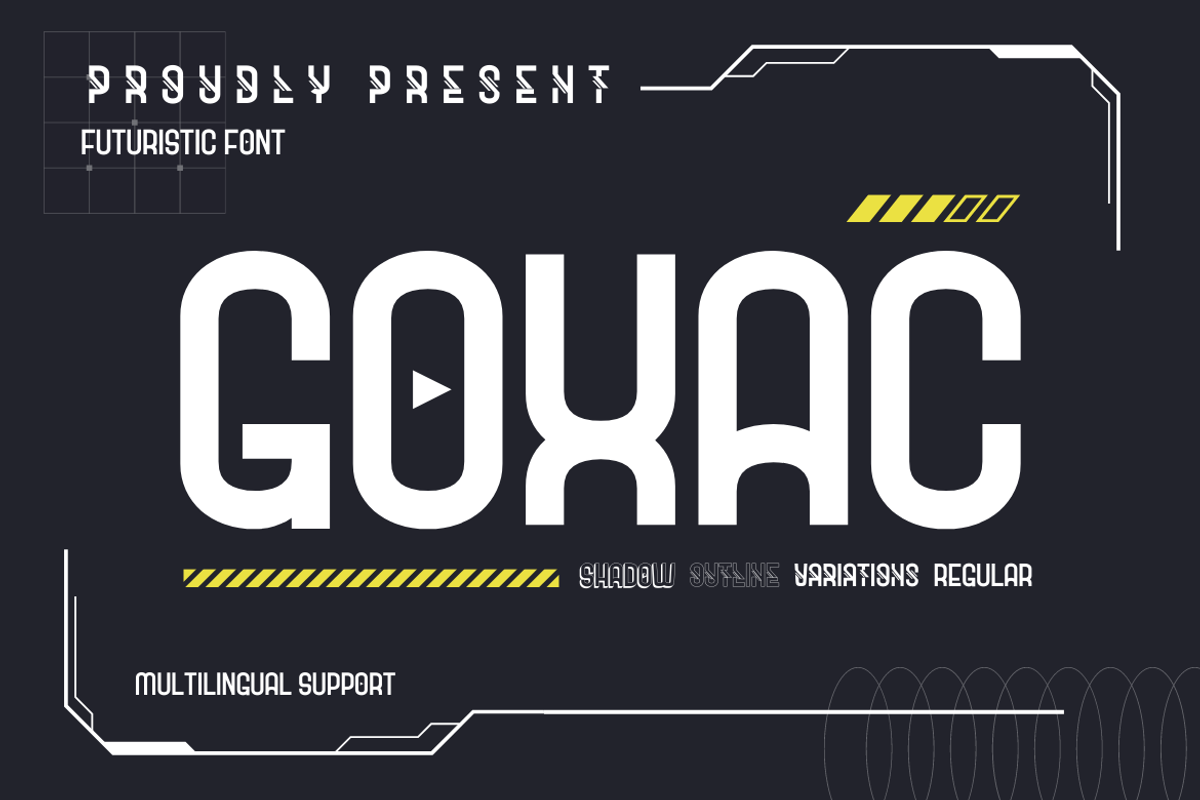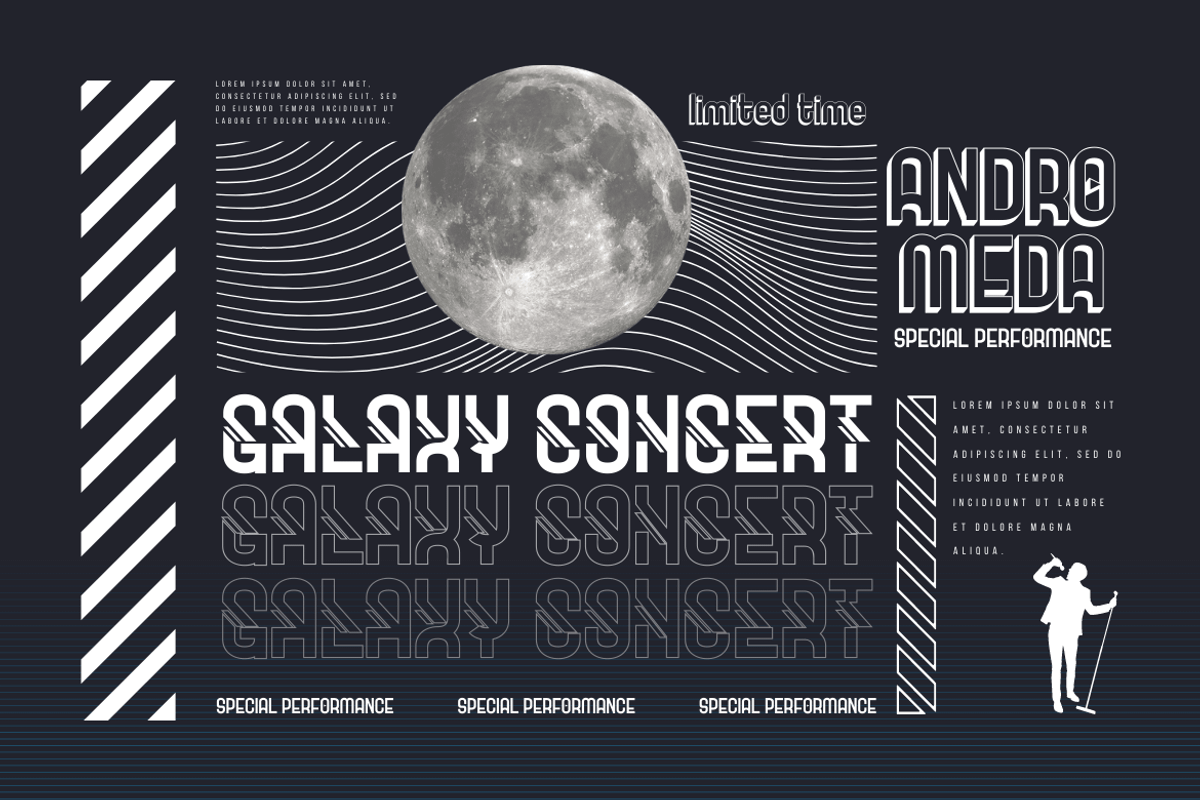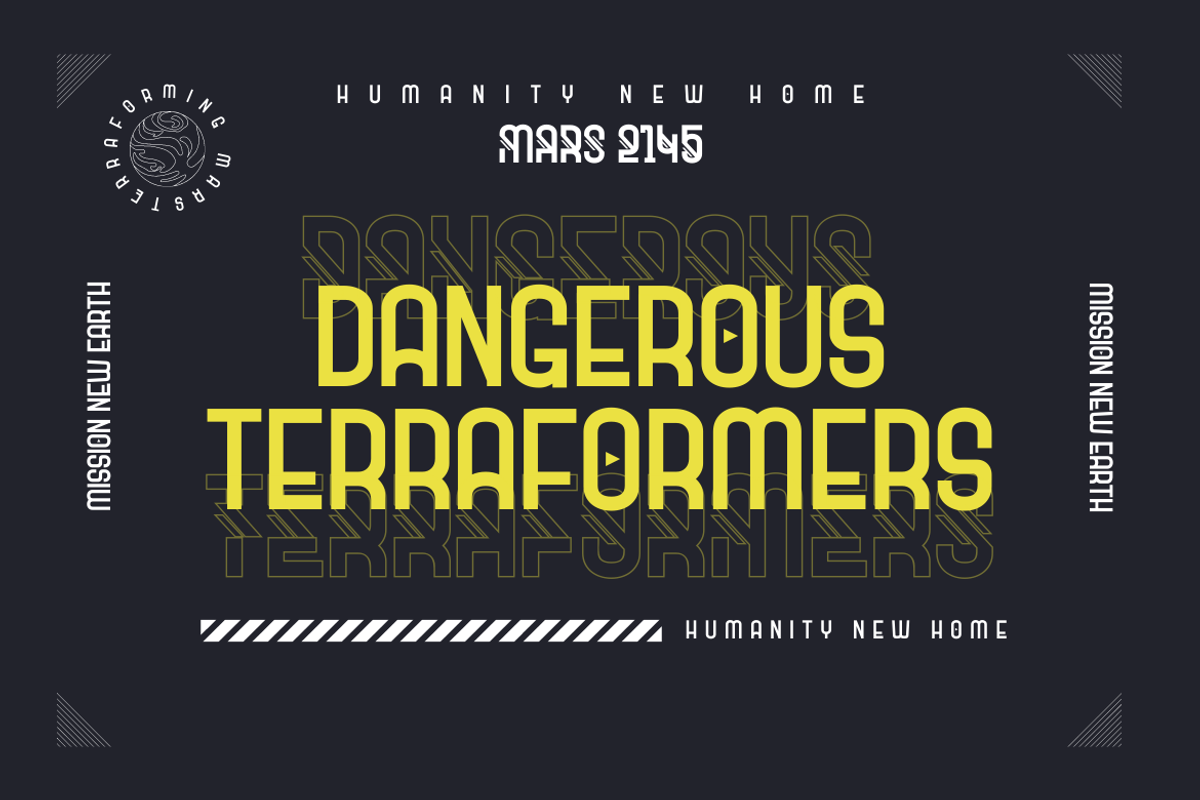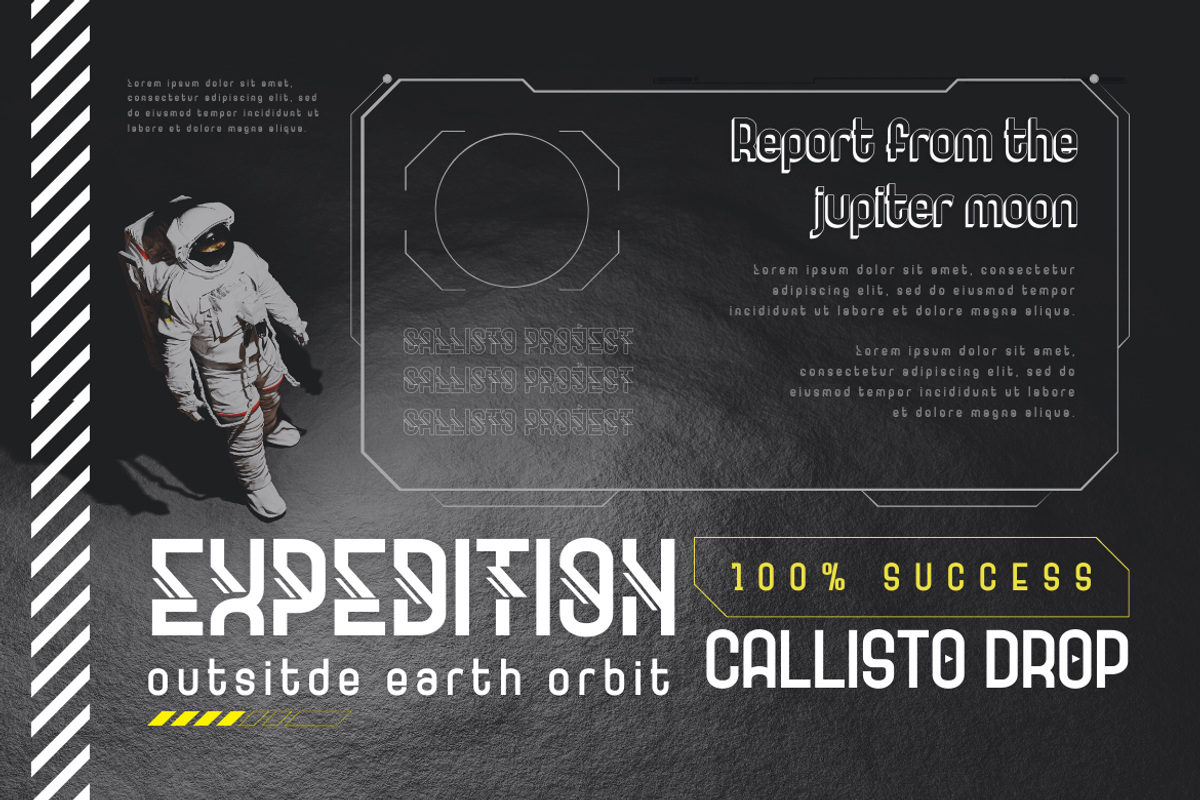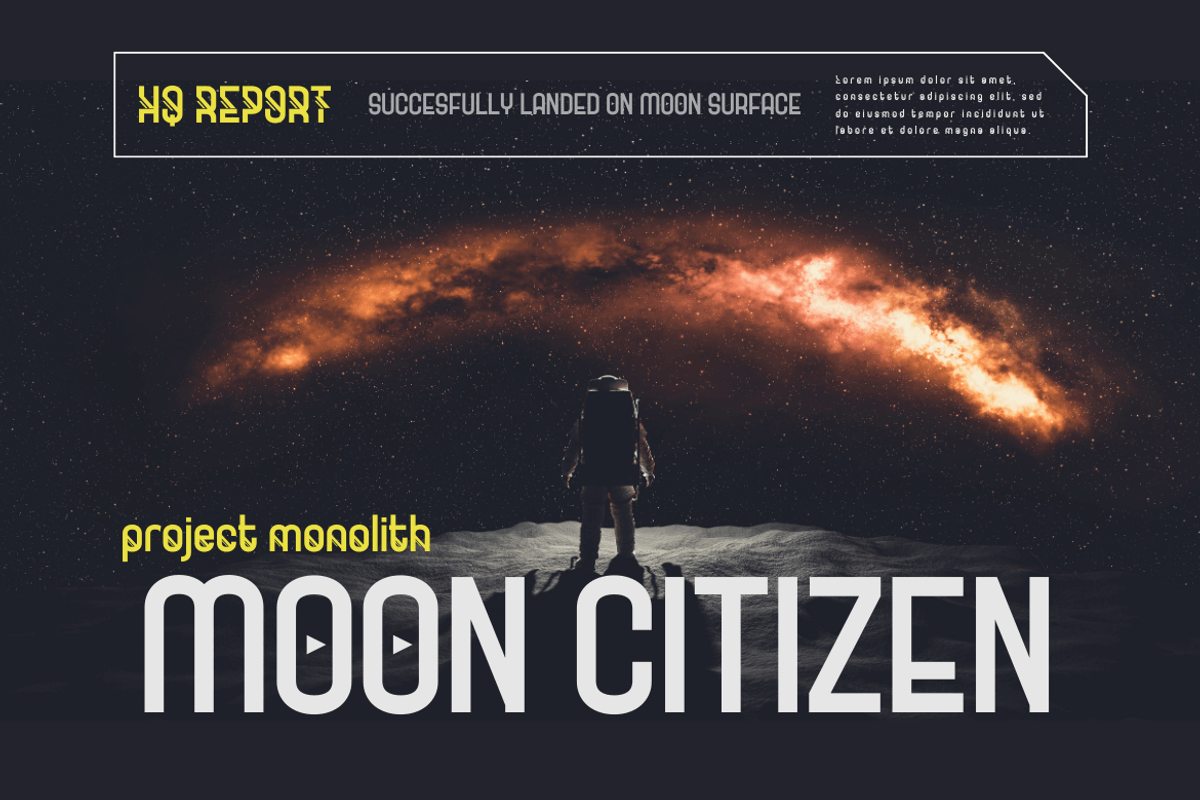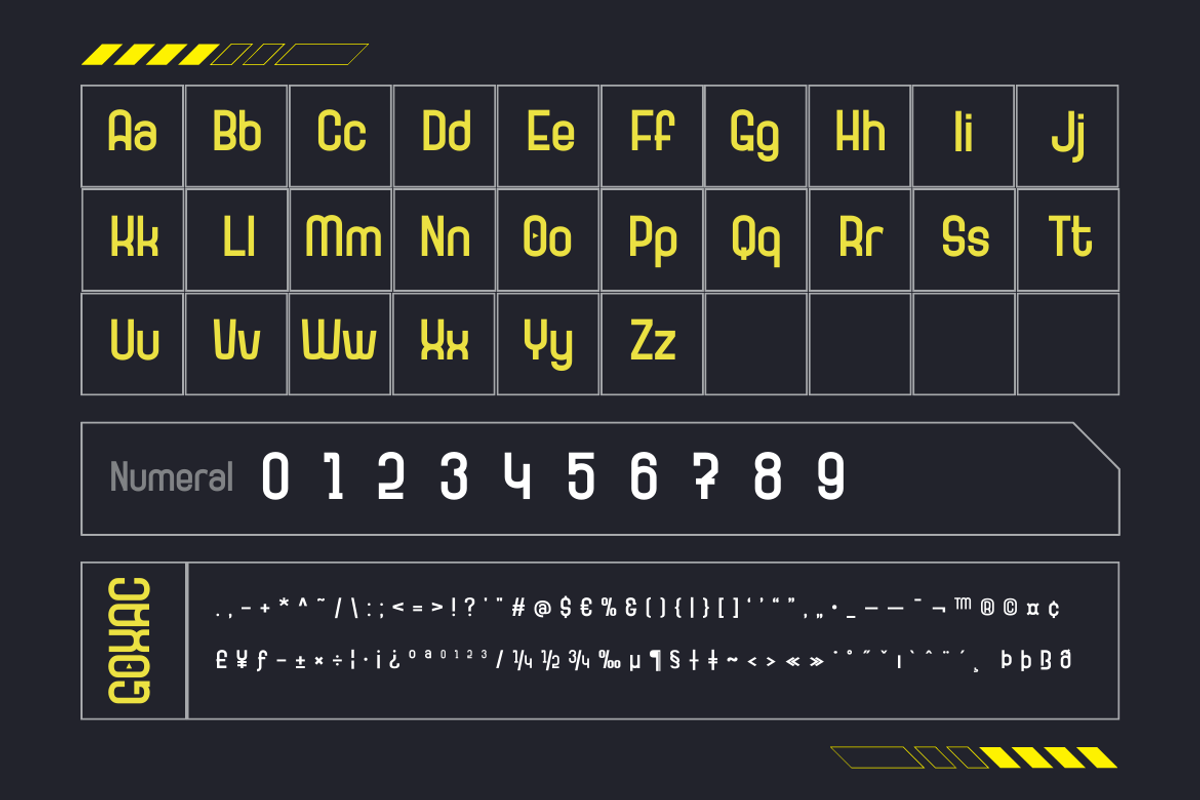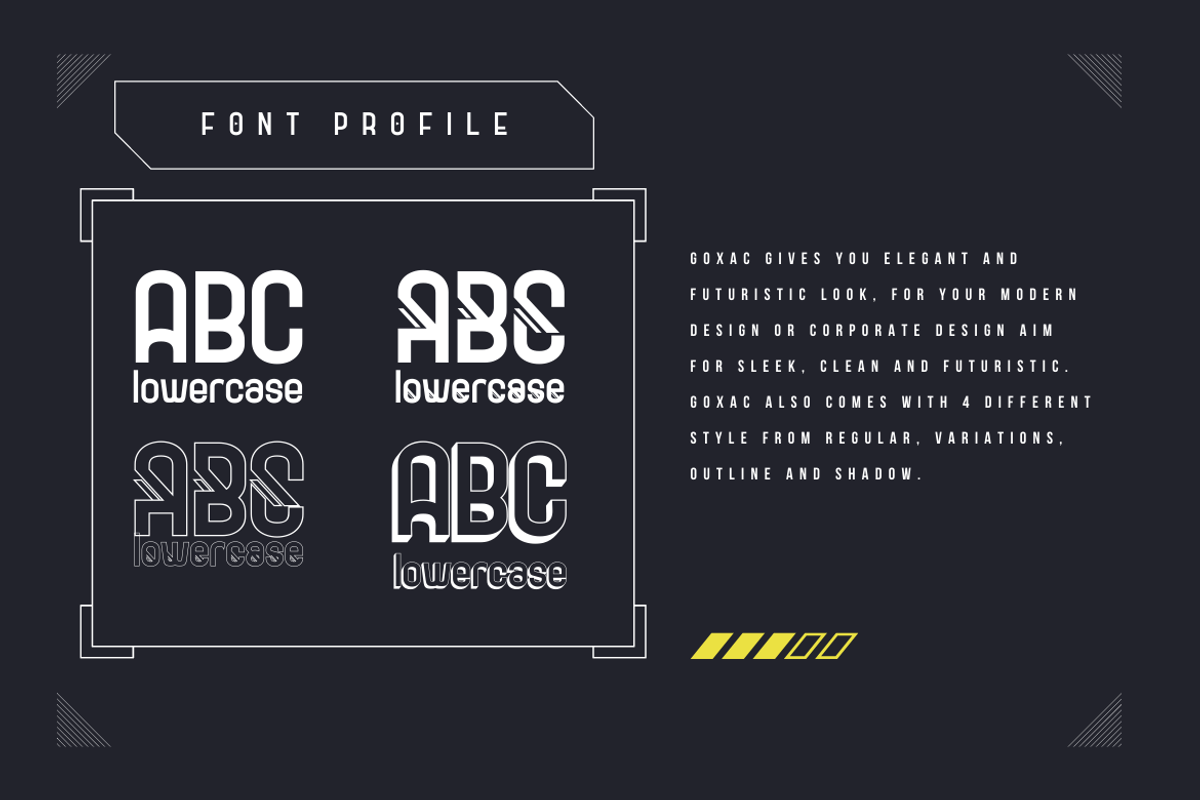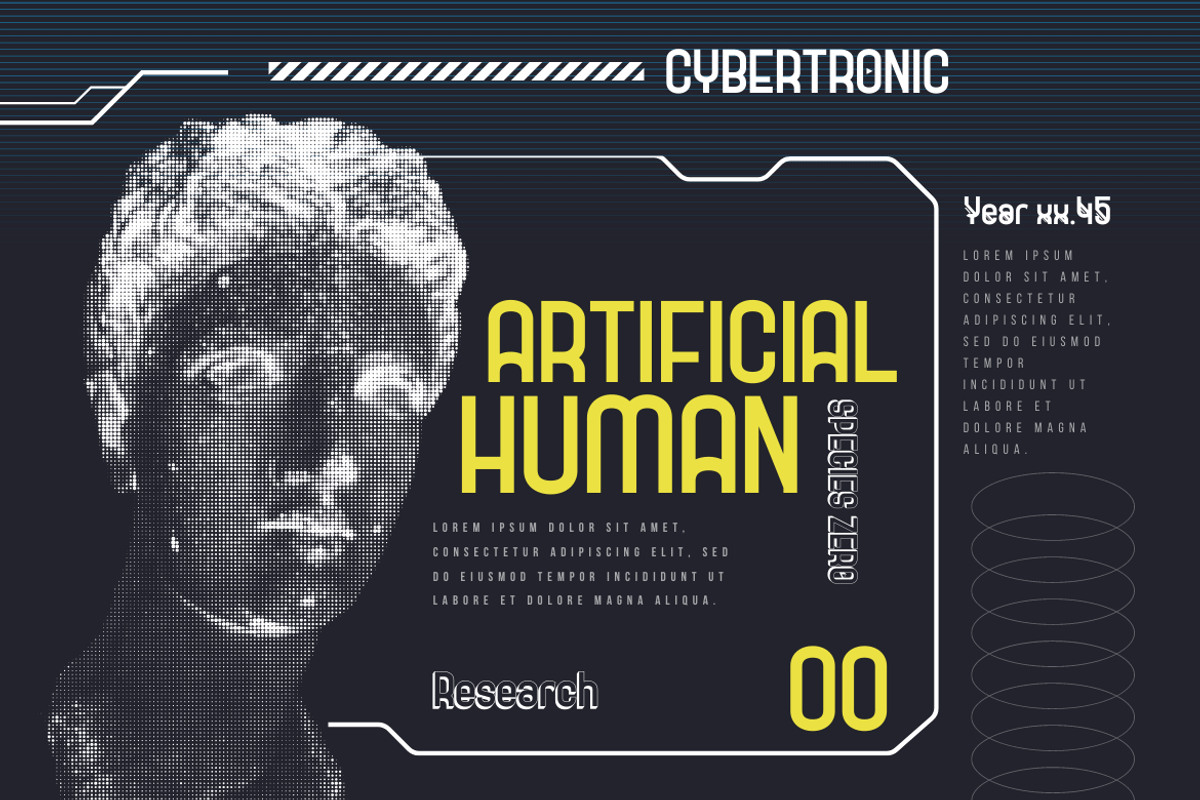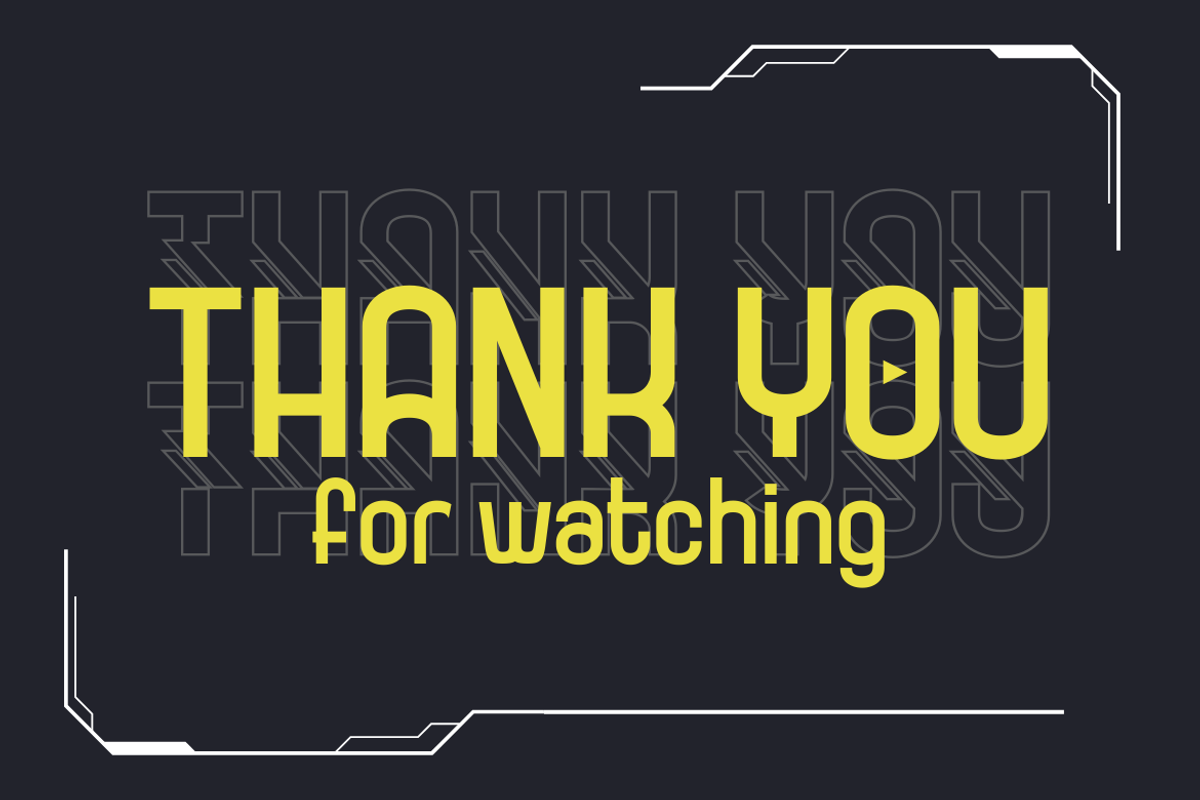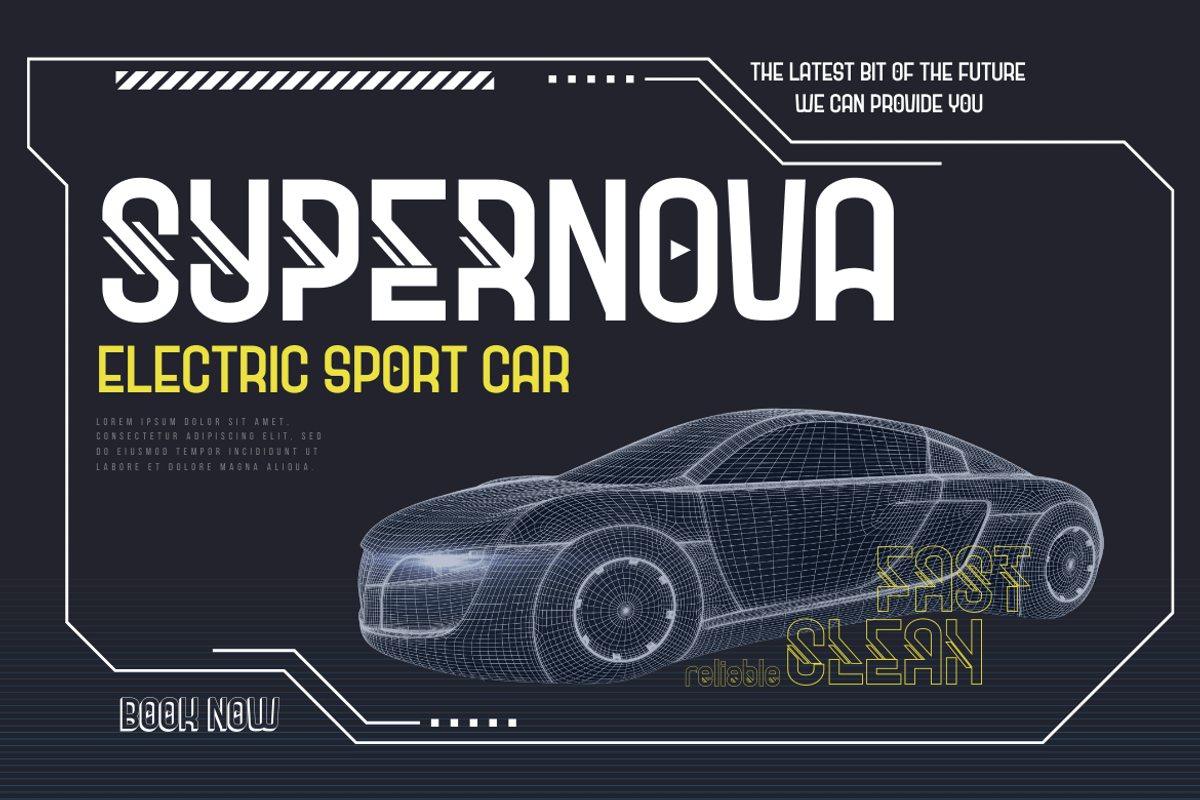
Goxac | Futuristic Font
Introducing Goxac is a boldly shaped font that gives any project a cutting-edge, futuristic feel. Goxac’s slick lines and distinctive letterforms give your text a contemporary appearance, making it ideal for designs with a science fiction or technological theme.
Goxac is the perfect tool for designing eye-catching headlines, posters, and social media graphics because of its bold aesthetic and futuristic theme. They are ideal for branding projects, packaging designs, book covers, and more due to their distinctive letter shapes.
With a complete set of punctuation and numbers, Goxac is available in both upper- and lowercase letters. This multipurpose font is ideal for designers, marketers, and anyone looking to add a touch of futurism to their work because it has four different variants.
With the Goxac font, rest assured that your designs will look unique, stylish, and futuristic. This font is perfect for those who want to stand out in the modern era, and for those who want to give their designs a touch of innovation. Goxac is a must-have for anyone looking to create a plan that really stands out.